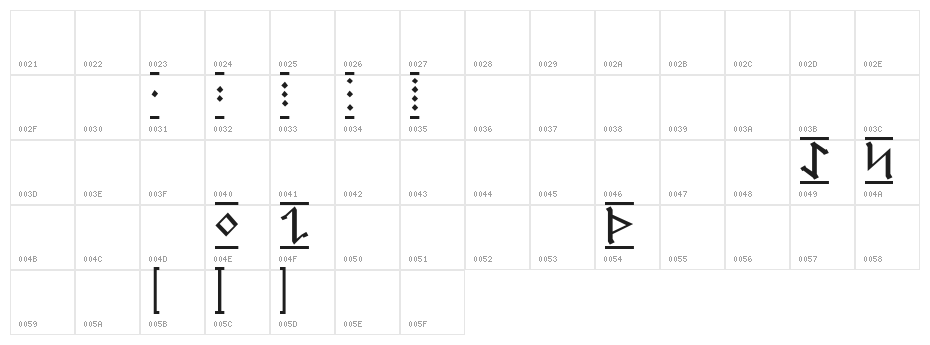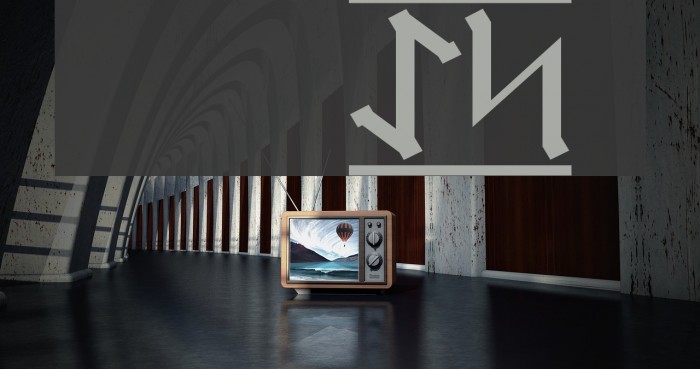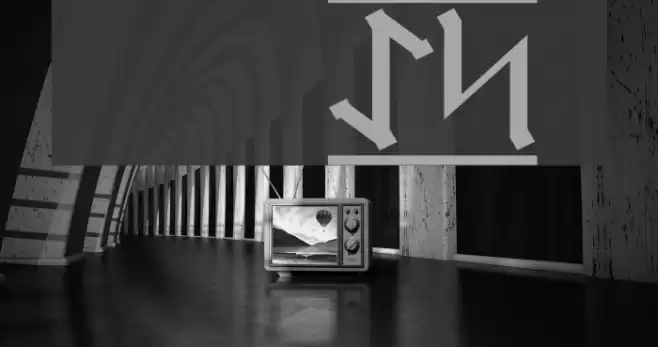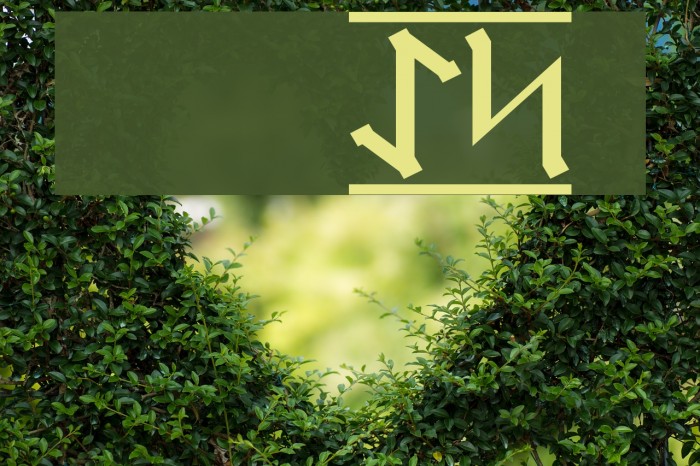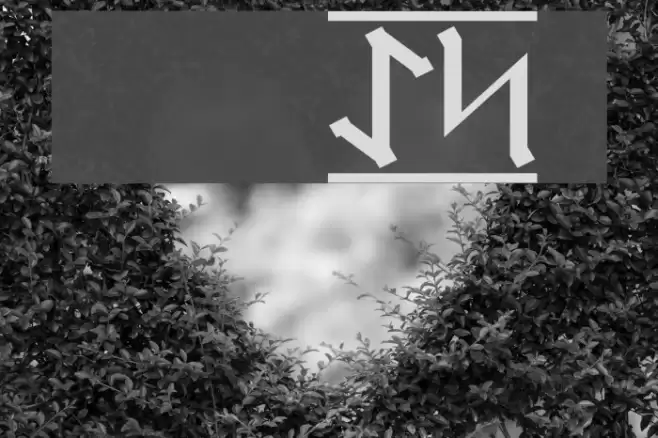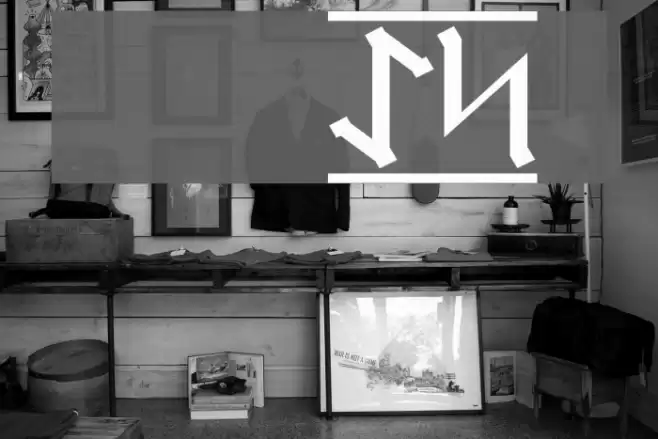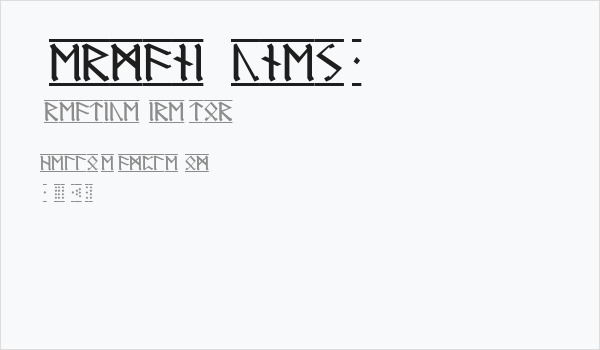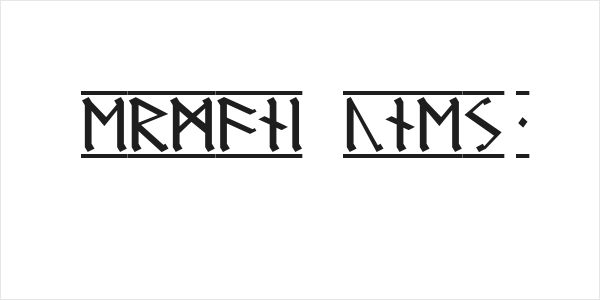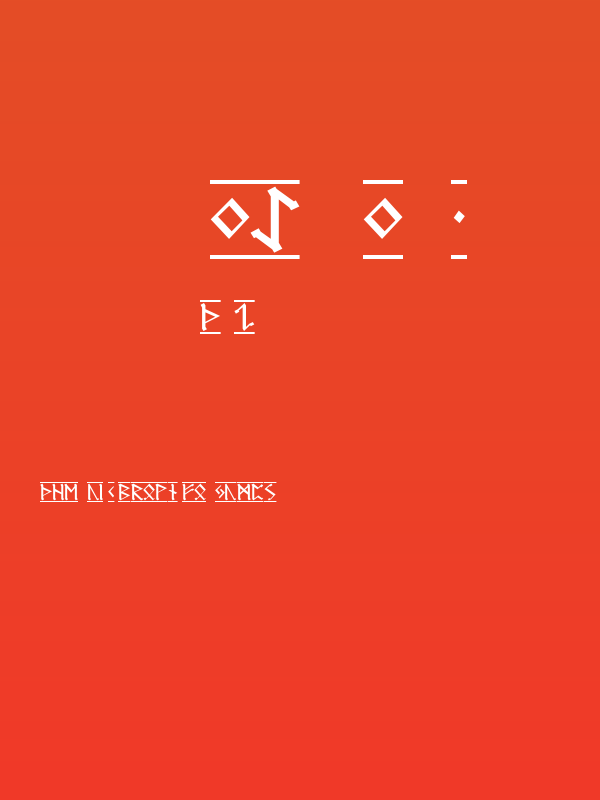
This font is inspired by ancient runic alphabets, featuring angular and geometric shapes that evoke a sense of historical mysticism. The characters are crafted with sharp edges and straight lines, creating a bold and striking appearance. Each letter is distinct, with unique angles and intersections that reflect traditional runic inscriptions. The font's design is reminiscent of ancient Germanic scripts, making it ideal for projects that require a touch of historical or mythical ambiance. The overall aesthetic is both decorative and functional, suitable for thematic displays or artistic endeavors.
| Use Case | Logos, Headlines, Themed displays |
| Proposed Projects | Suitable for historical reenactment materials, fantasy book covers, themed event posters, or game design elements requiring a mystical or ancient touch. |